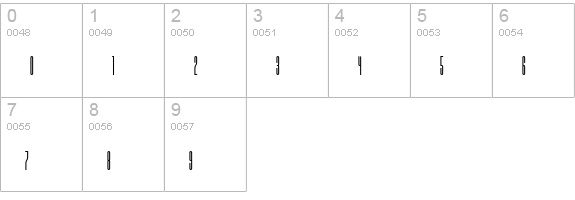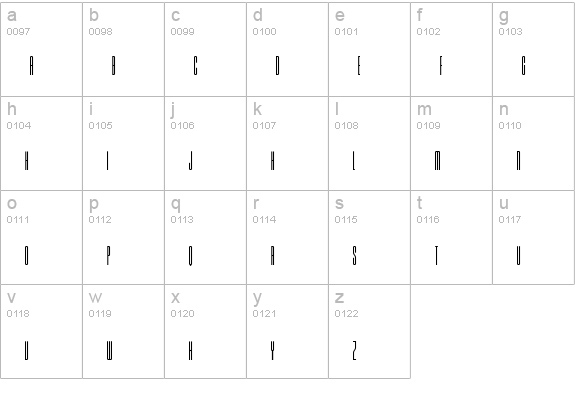
Barcode-One Font Details
Introducing Barcode-One font, a versatile and modern typeface perfect for adding a sleek and professional touch to your designs. This unique font features clean lines and a contemporary style that is sure to make your projects stand out. Whether you're creating product labels, packaging designs, or promotional materials, Barcode-One font is the perfect choice to enhance your visual content. What sets Barcode-One font apart is its ability to convey information clearly and efficiently, making it ideal for barcodes, product numbers, and other data-driven applications. Its minimalist design ensures readability while maintaining a stylish and sophisticated look. Best of all, Barcode-One font is available for free download at FontsMarket.com. This means you can easily access this high-quality font and incorporate it into your projects without any additional cost. Don't miss out on this opportunity to elevate your designs with the sleek and modern Barcode-One font. Download it today and see the difference it can make in your creative work!